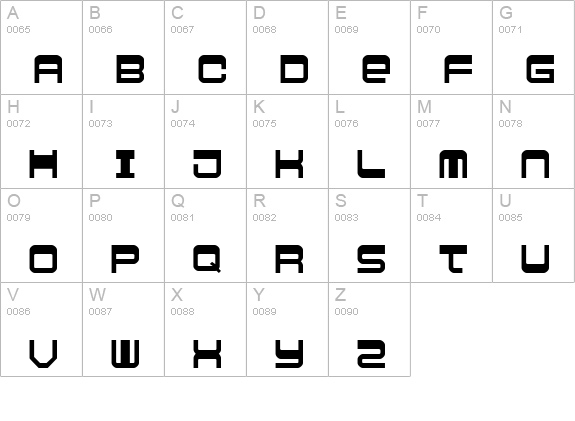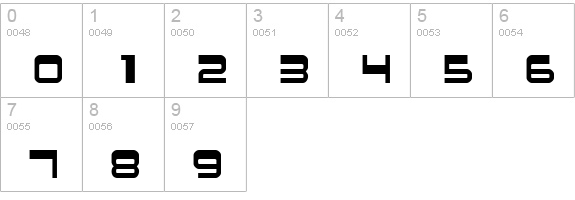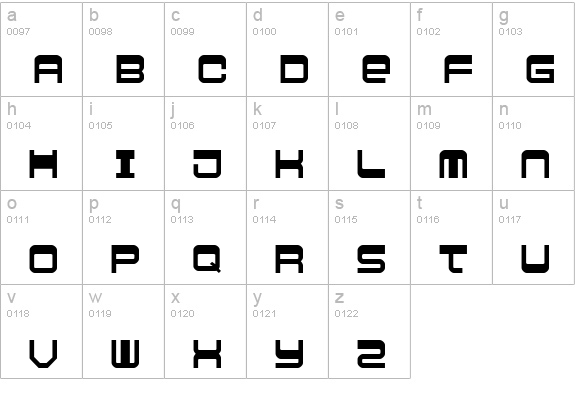
Logic lodger Font Details
The Logic Lodger font is a modern and sleek typeface that exudes sophistication and elegance. Its clean lines and sharp edges make it perfect for a wide range of design projects, from branding to editorial layouts. With its unique aesthetic, this font is sure to make your designs stand out and grab attention. What's more, the Logic Lodger font is available for free download at FontsMarket.com. This means you can easily access this stylish and versatile font without any cost, making it a valuable addition to your font collection. Whether you're a seasoned designer or just starting out, the Logic Lodger font is a must-have for creating impactful and eye-catching designs.